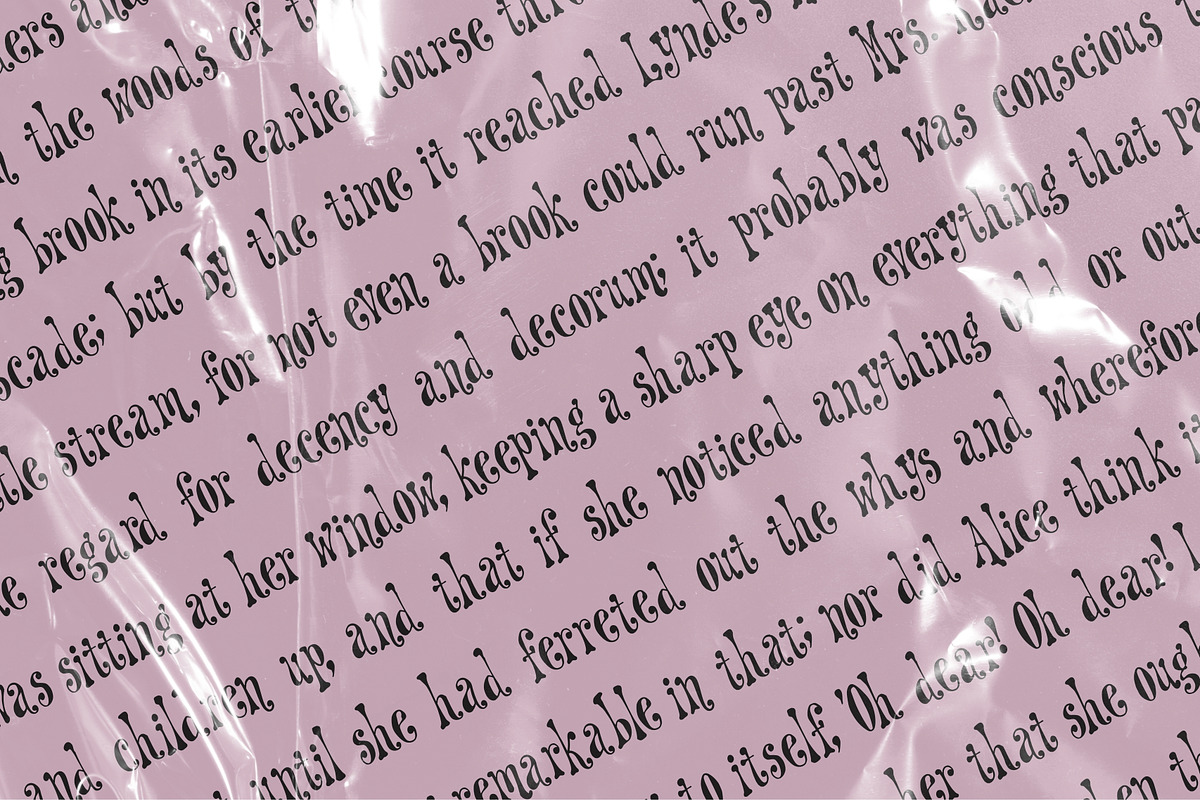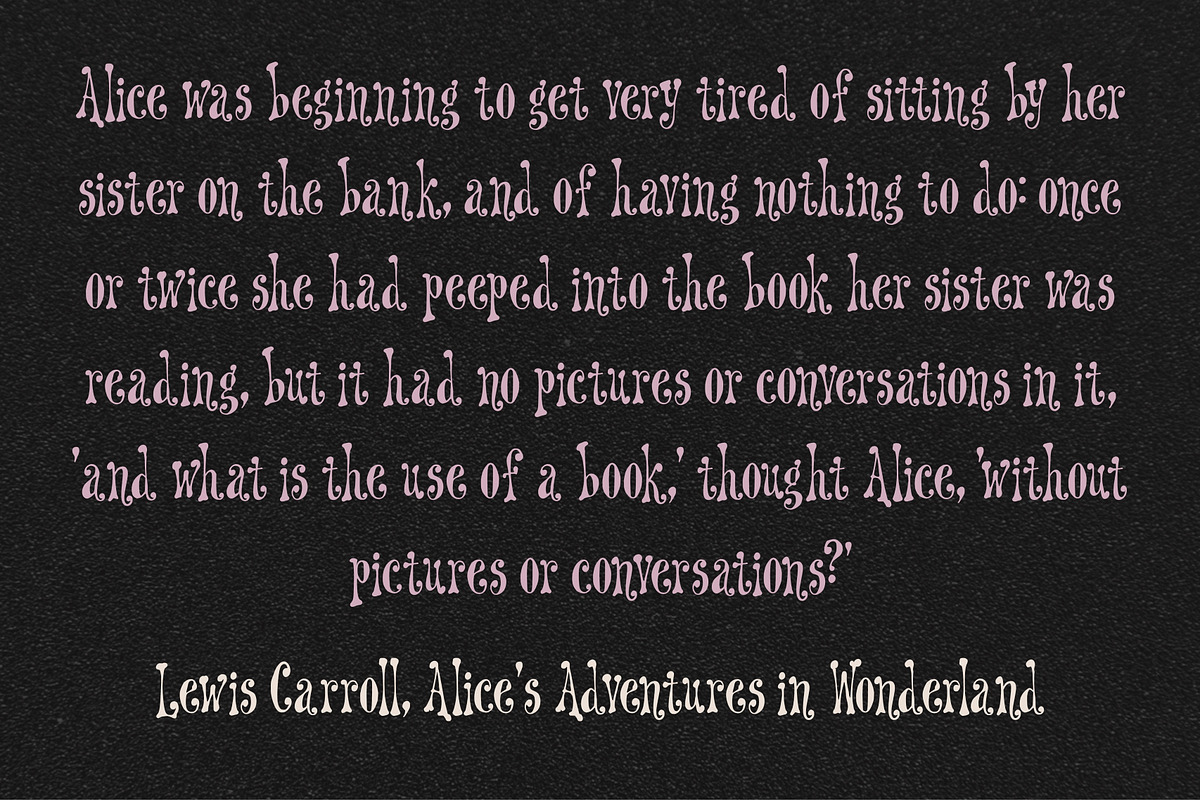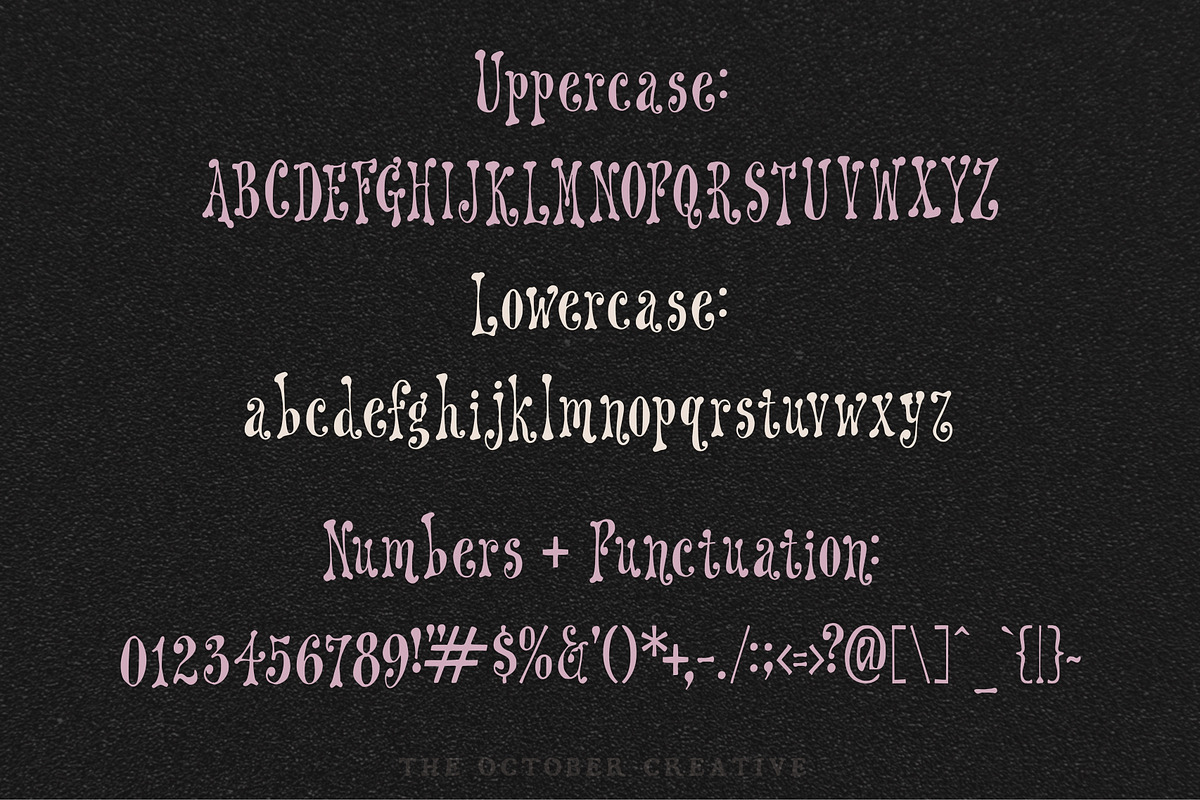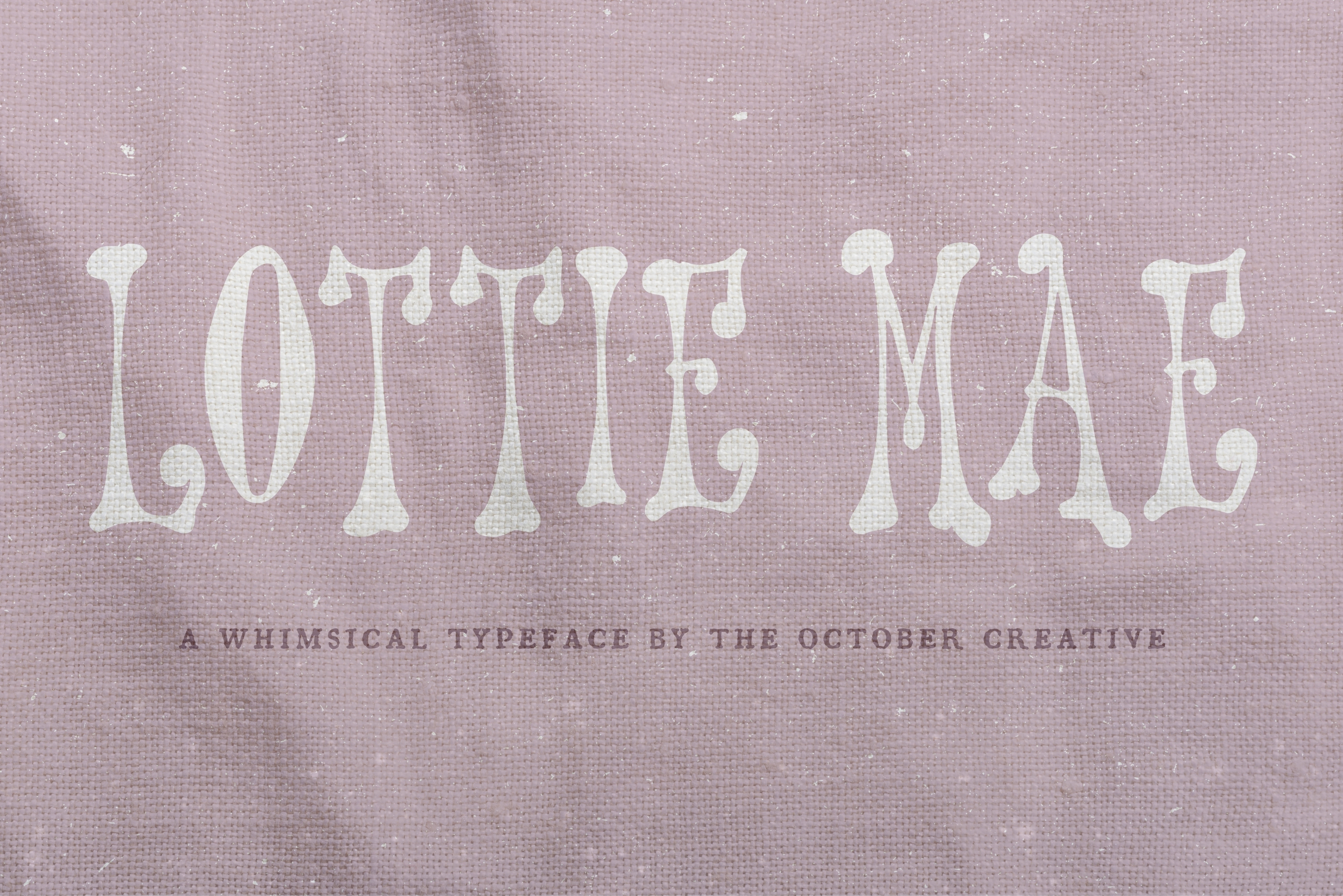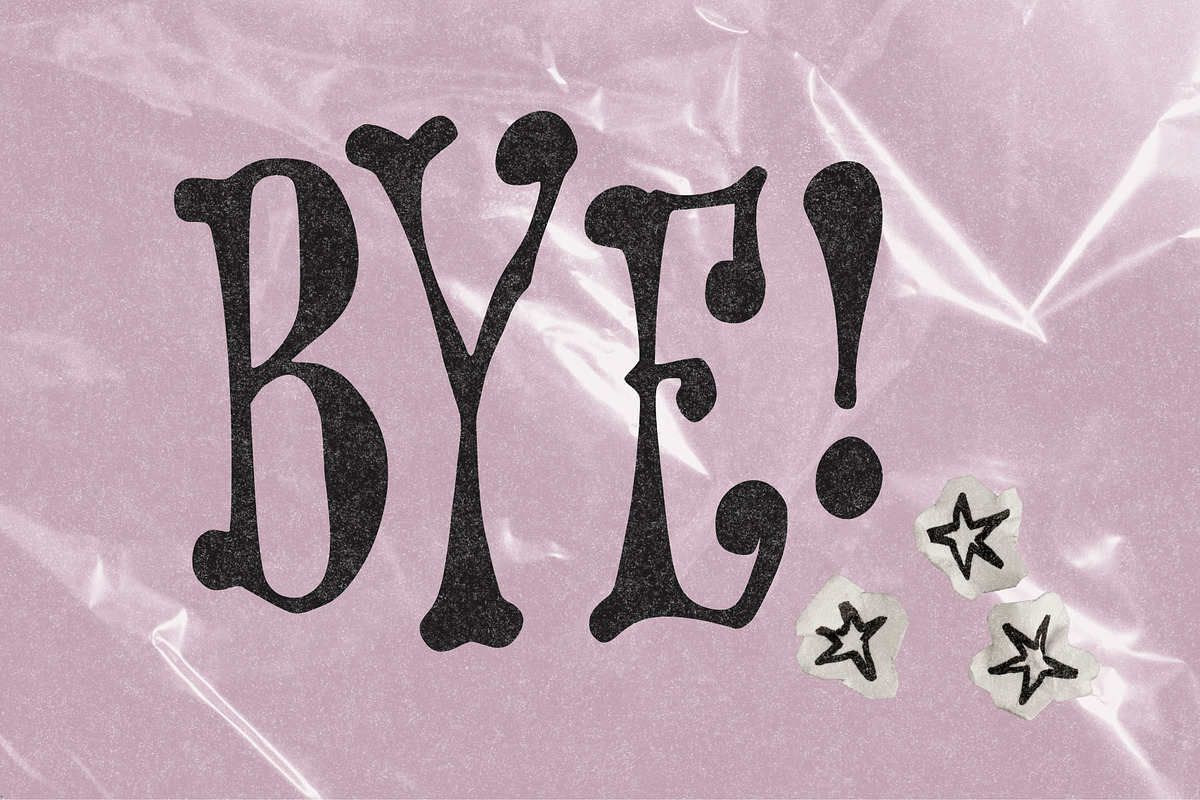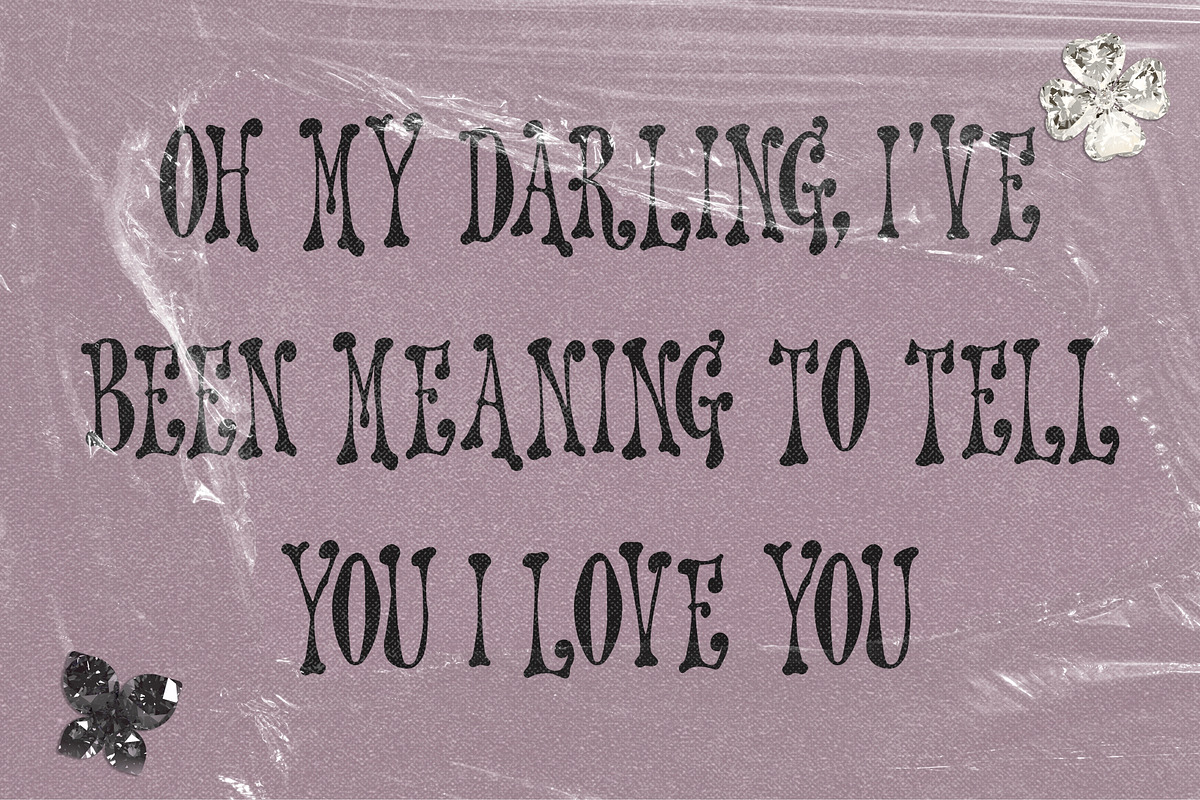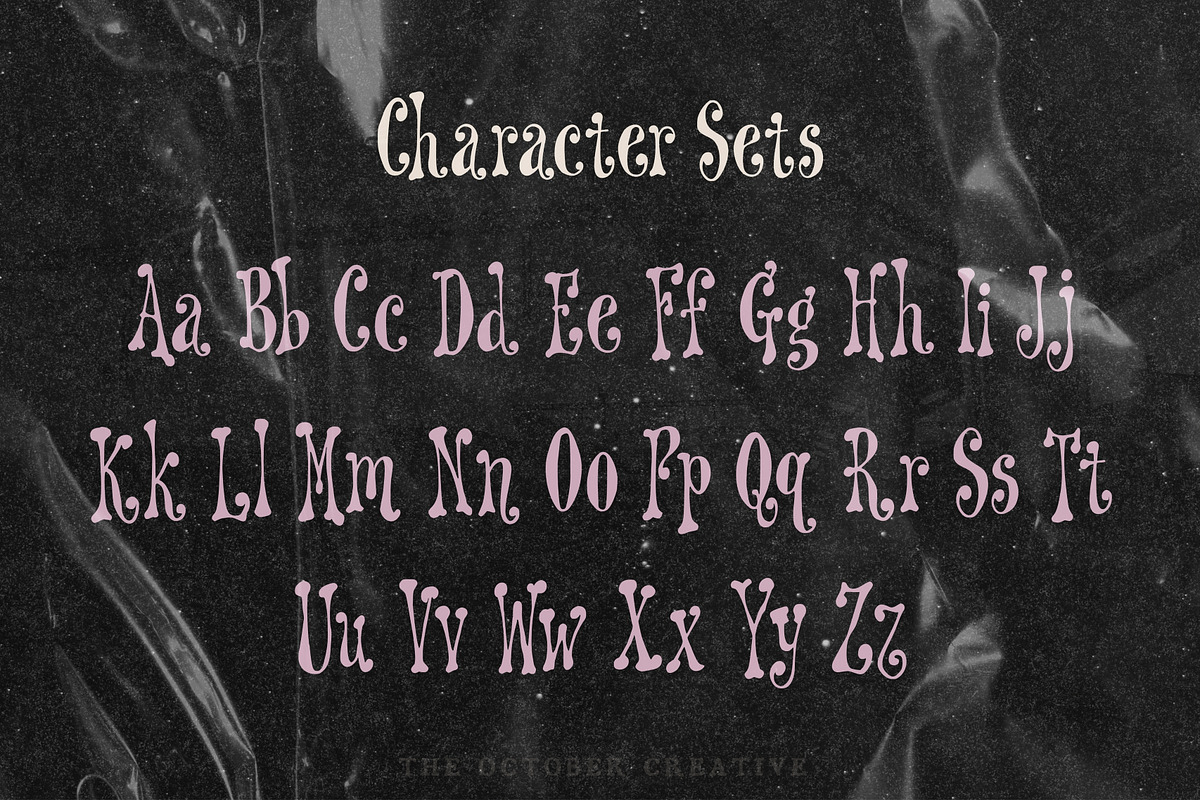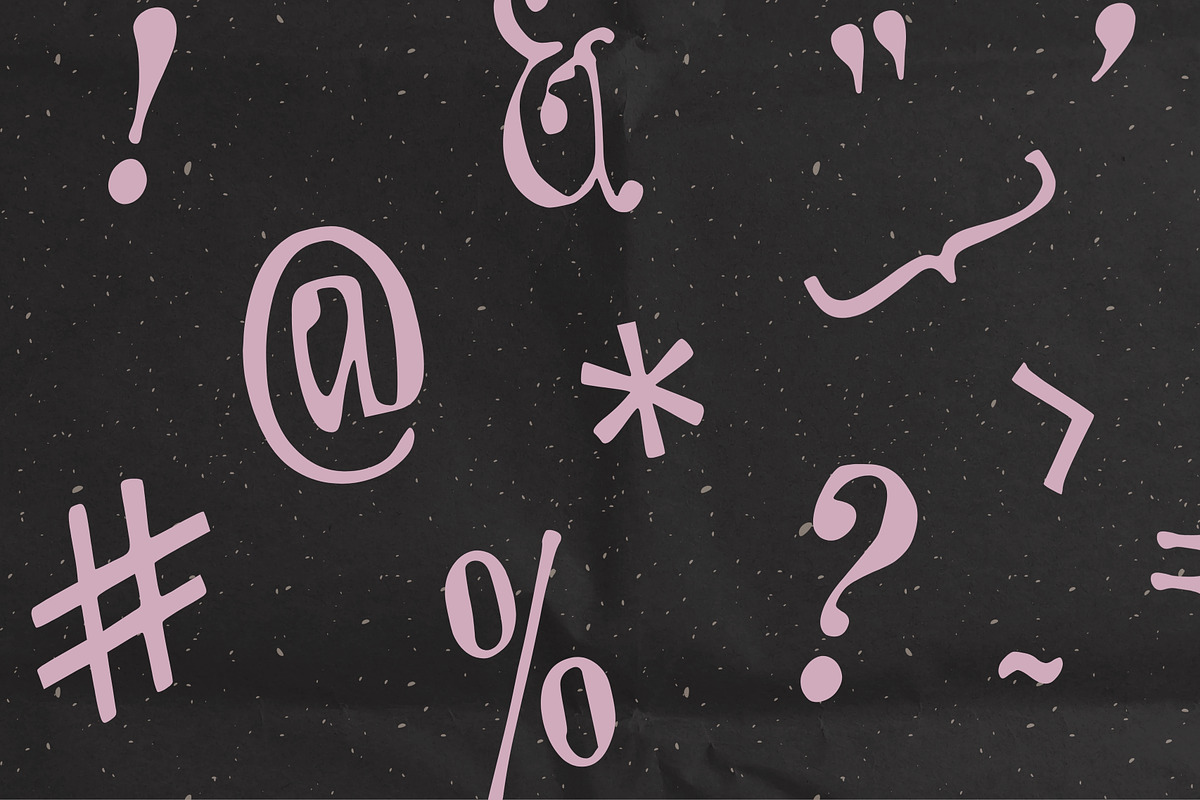
Lottie Mae Retro Display Font
Lottie Mae is a retro display font with medium-bold seventies letters, slight condensing, and soft square ends. It fits farmhouse signage, market signs, product labels, and wall prints.
CHARACTER SET
Uppercase A to Z, lowercase a to z, numerals 0 to 9, and every standard keyboard punctuation mark and symbol: ! " # $ % & ' ( ) * + , - . / : ; < = > ? @ [ \ ] ^ _ ` { | } \~
Curly quotes and apostrophes (‘ ’ “ ”), en and em dashes, an ellipsis, and a bullet.
Accented letters: À Á Â Ã Ä Å Ç È É Ê Ë Ì Í Î Ï Ñ Ò Ó Ô Õ Ö Ù Ú Û Ü and their lowercase forms.
LANGUAGES SUPPORTED
English, plus the accented vowels, Ñ, and Ç used in names and everyday words in Spanish, French, Italian, Portuguese, German, and Dutch. Not included: ß, Æ, Ø, Œ, and the upside-down ¿ and ¡.
SPECIAL CHARACTERS